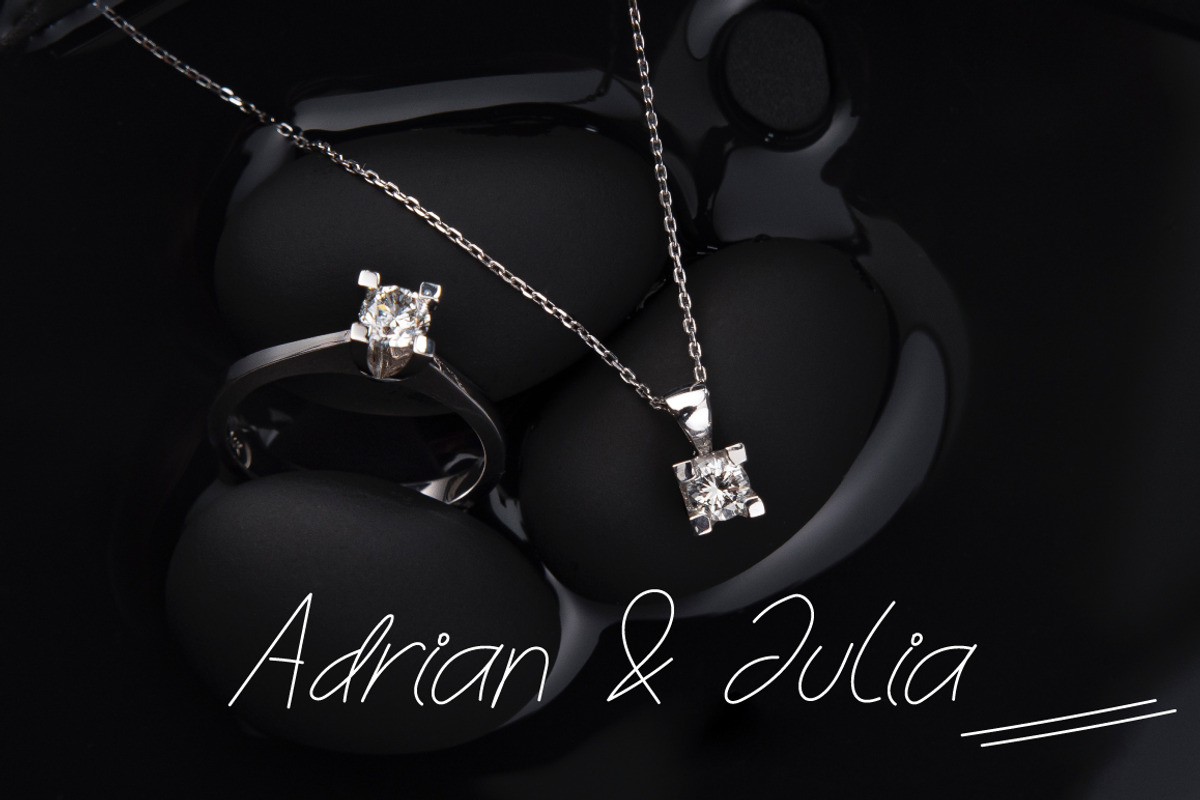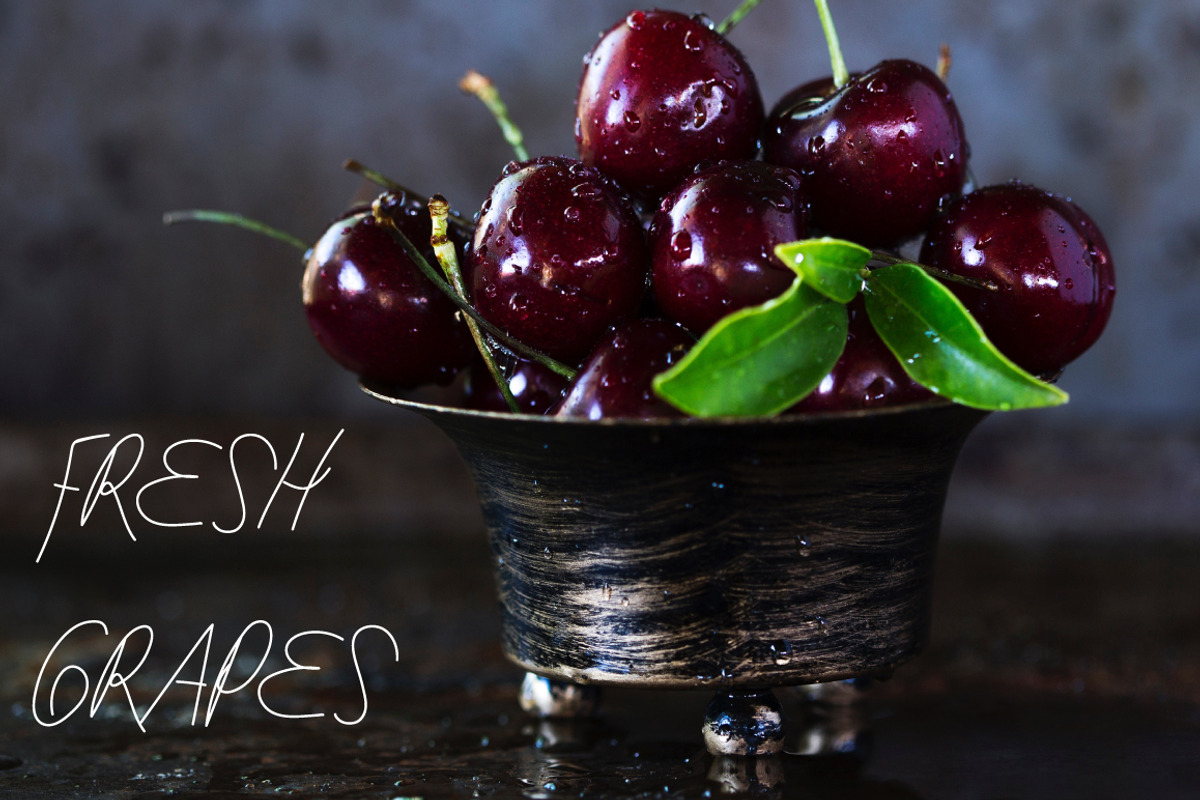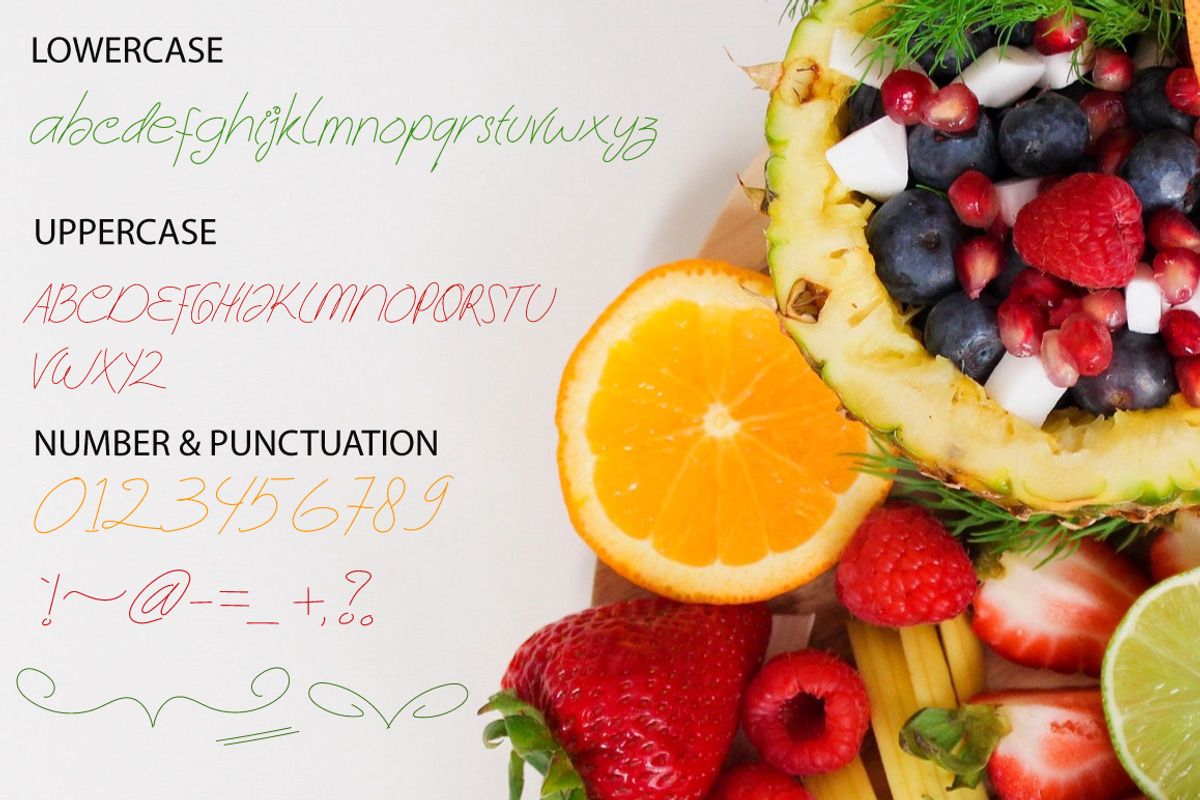
Mitalica – Authentic Handwritten
Introducing Mitalica – an authentic handwritten font that captures the spirit of real handwriting with a modern creative twist. Designed to look natural, expressive, and approachable, Mitalica brings human warmth and spontaneity to every project.
This font is perfect for a wide range of creative uses, including cartoons, comics, YouTube content, social media posts, and product branding. Its bold yet casual style makes it suitable for both playful and professional designs, giving your text a confident and personal touch.
Mitalica features fluid, natural strokes that mimic real handwriting—making your designs feel personal, dynamic, and full of life.
Handcrafted with a natural writing feel
Let Mitalica give your next project an authentic voice—raw, relatable, and ready to stand out.